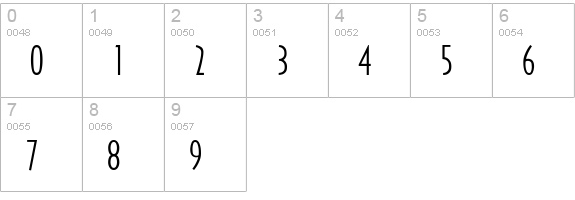
CassandraConden Font Details
CassandraConden font is a stunning typeface that exudes elegance and sophistication. With its sleek lines and modern aesthetic, this font is perfect for adding a touch of class to any project. Whether you're designing a wedding invitation, a business card, or a logo, CassandraConden font is sure to make a lasting impression. And the best part? CassandraConden font is completely free to download at FontsMarket.com. That's right, you can elevate your designs with this beautiful font without spending a dime. So why wait? Head over to FontsMarket.com now and download CassandraConden font to take your creations to the next level.